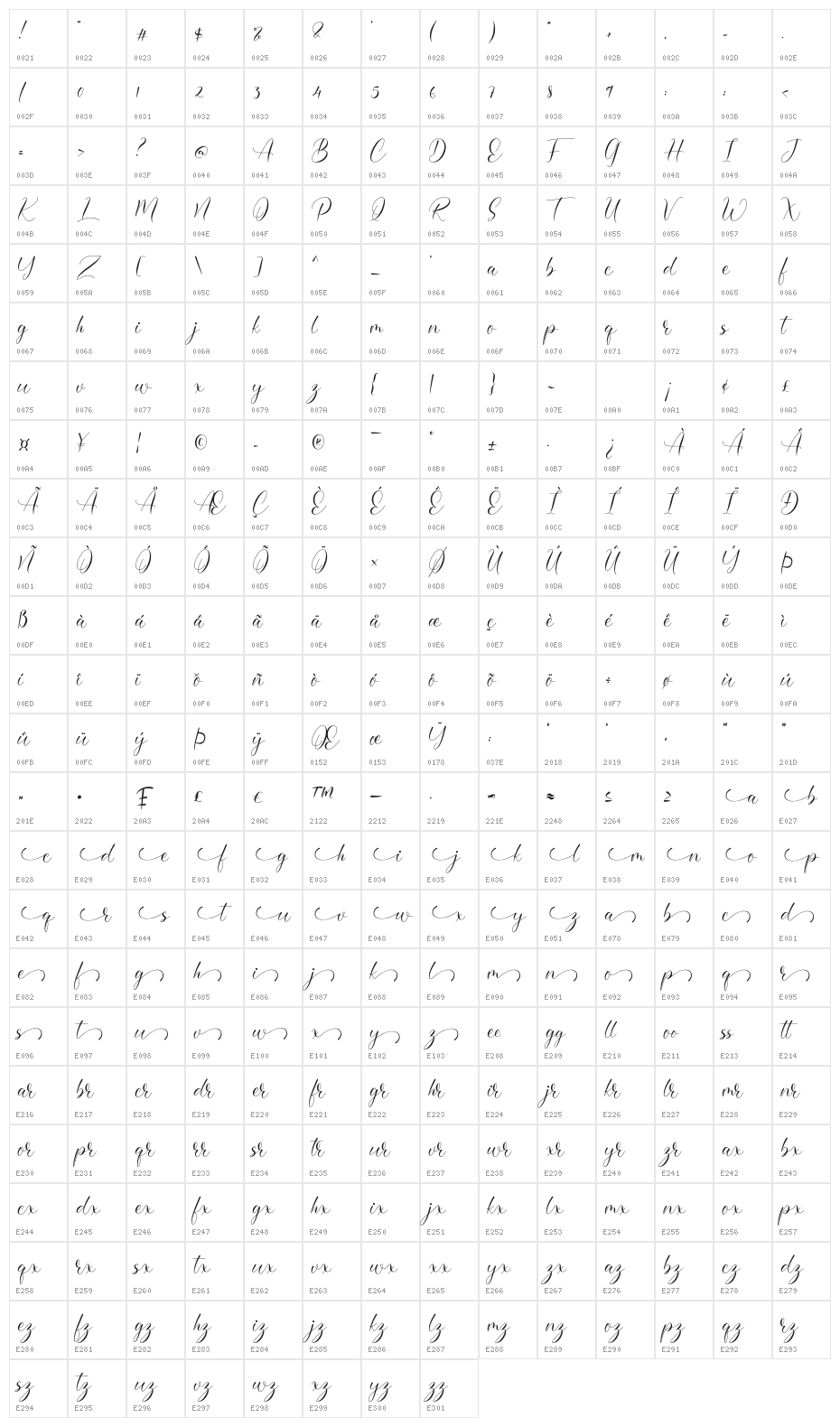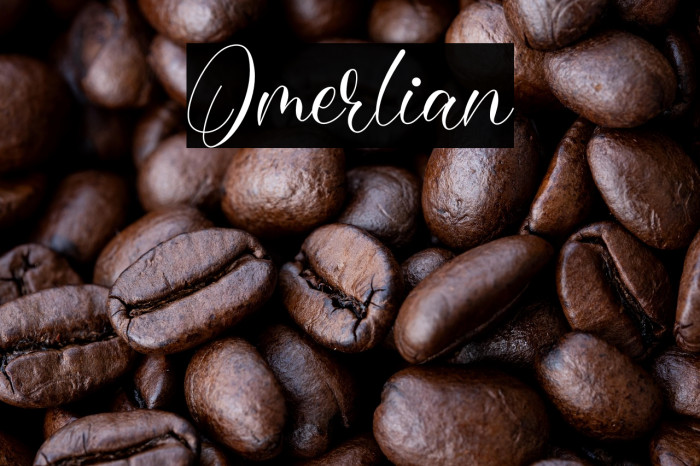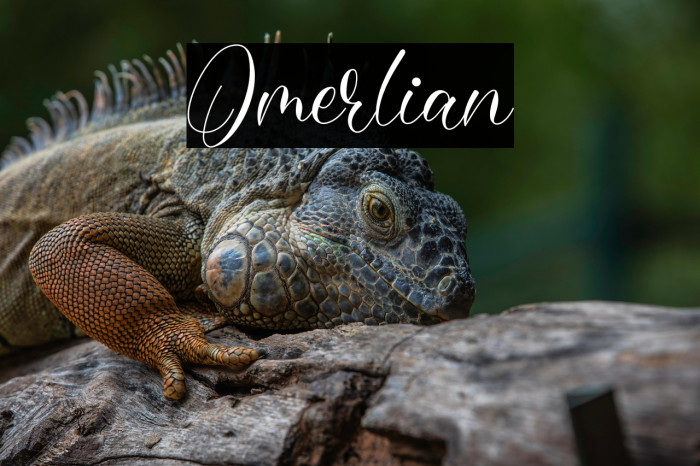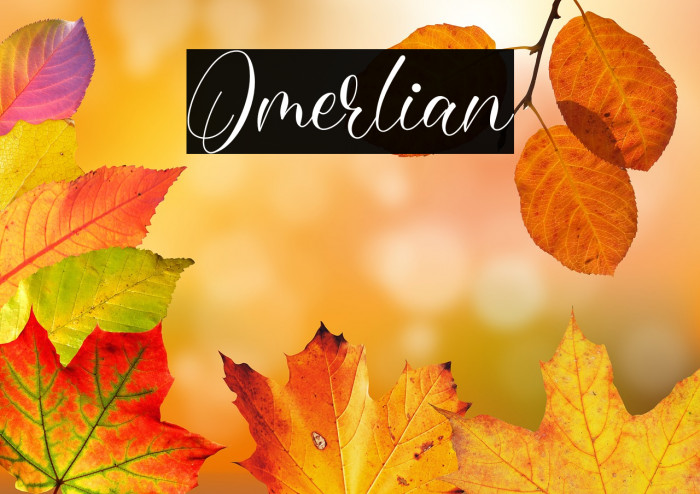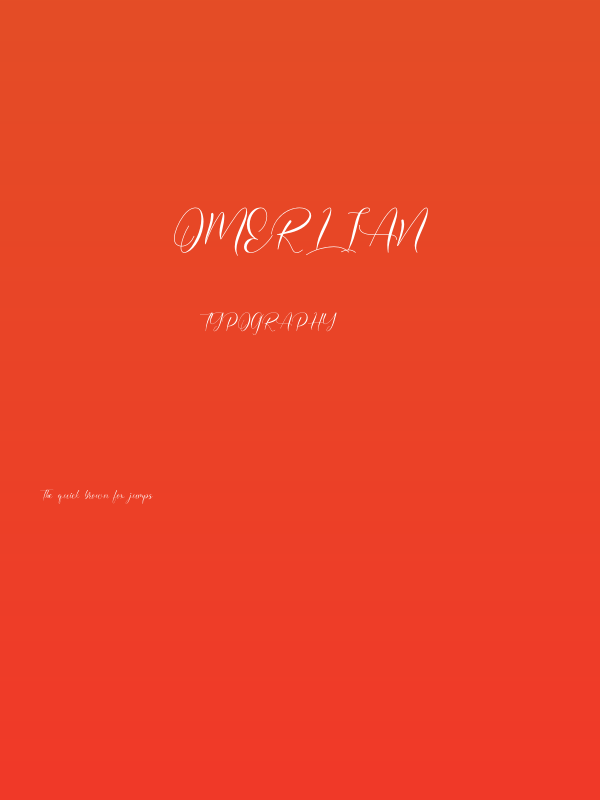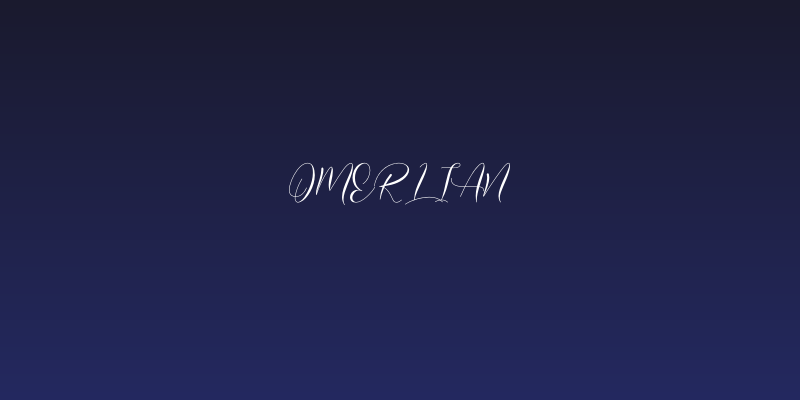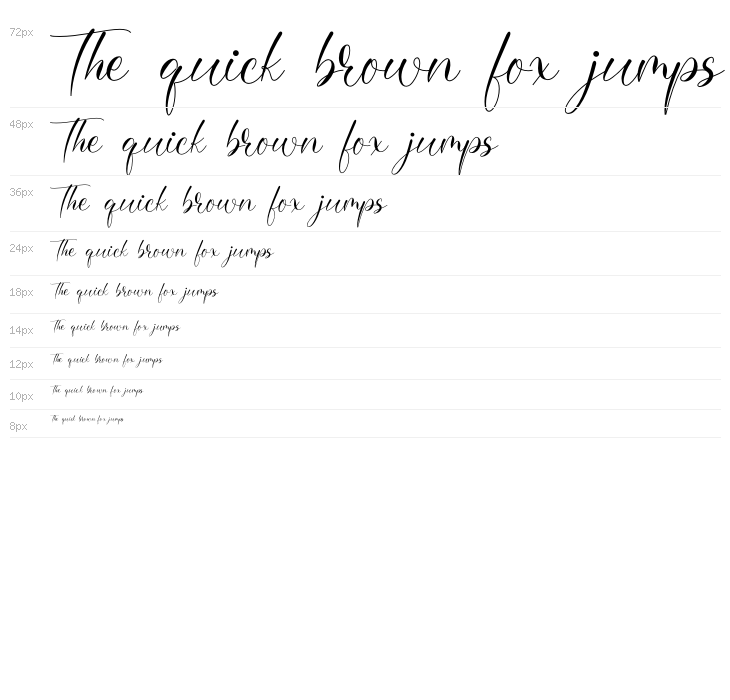
Omerlian Font
Omerlian Description
This elegant script font features flowing, cursive strokes that convey a sense of sophistication and grace. The uppercase letters are characterized by their sweeping curves and loops, while the lowercase letters maintain a consistent fluidity, enhancing readability. The numerals are designed with a similar flair, ensuring they complement the overall style. Special characters are thoughtfully integrated, maintaining the font's cohesive aesthetic. The font's delicate lines and artistic flair make it ideal for projects that require a touch of elegance and refinement.